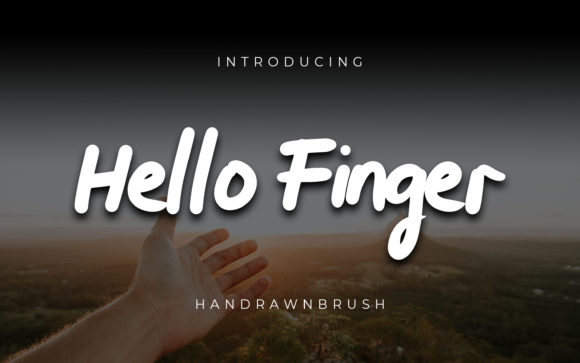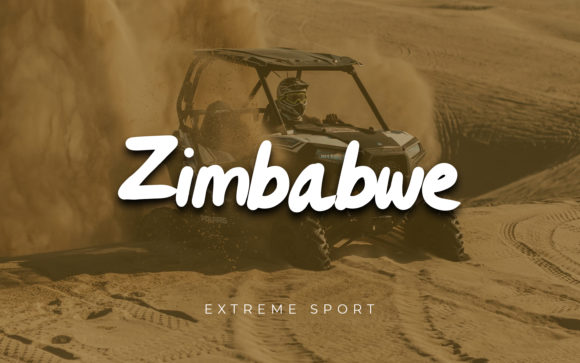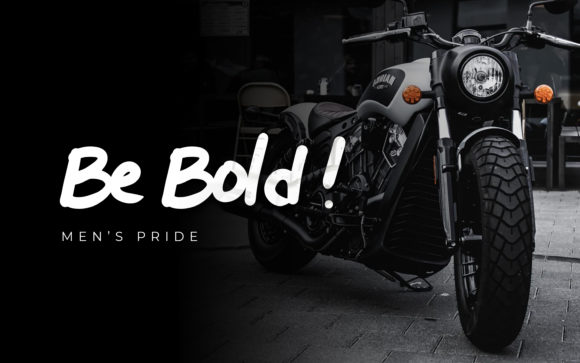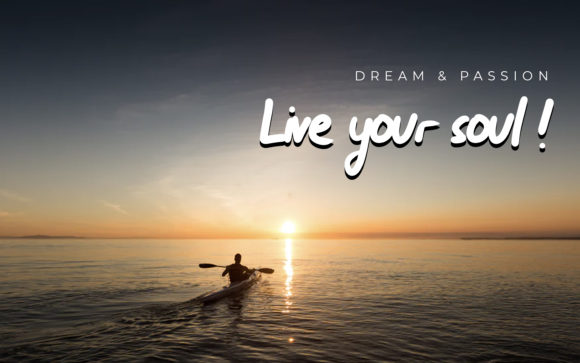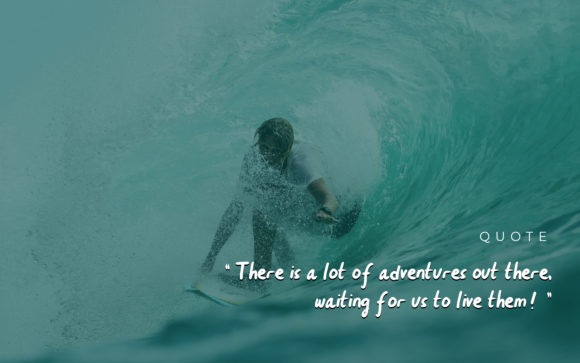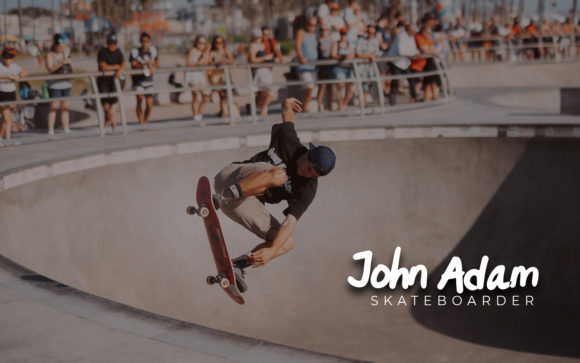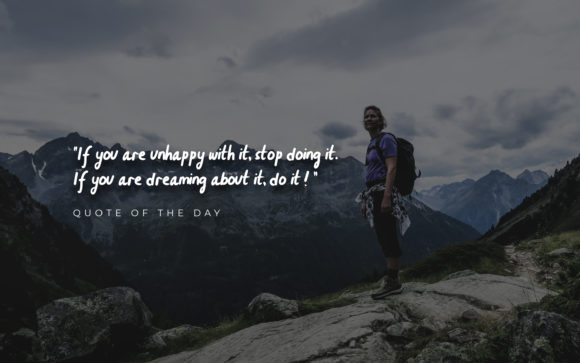
Hello Finger Font
About Hello Finger Font
Hello Finger is a casual and relaxed handwritten font that brings a laid-back and carefree vibe to your designs. With its natural and organic strokes, this font exudes a sense of authenticity and liveliness, making it a wonderful choice for adding a touch of vibrancy to your projects.
The informal and playful nature of Hello Finger makes it perfect for a variety of design applications. Whether you’re creating social media graphics, personalizing greeting cards, designing casual logos, or working on DIY projects, this font will infuse your designs with a sense of warmth and friendliness.
The free-flowing and slightly imperfect letterforms of Hello Finger add character and charm to your text. It captures the essence of handwritten notes and doodles, evoking a sense of familiarity and personal touch. This makes it a great choice for projects that aim to create a more casual and relatable connection with the audience.
Hello Finger’s versatility allows it to work well with both digital and print media. From social media posts to posters, from blog headers to personalized stationery, this font will bring a touch of playfulness and joy to your designs. Its legibility ensures that your message is conveyed clearly, while its casual style adds a sense of effortless coolness.
The cheerful and lively style of Hello Finger makes it particularly suitable for designs targeting a younger audience or projects that aim to evoke a carefree and fun atmosphere. Its friendly appearance and relaxed vibe create an inviting and approachable impression, fostering a positive connection with the viewers.
In summary, Hello Finger is a casual and relaxed handwritten font that adds a touch of liveliness and playfulness to your designs. Its sweet and full of life style makes it a wonderful choice for brightening up your projects, whether you’re designing social media graphics, creating personalized stationery, or working on DIY projects. Embrace the casual charm of Hello Finger and let your creativity shine through.